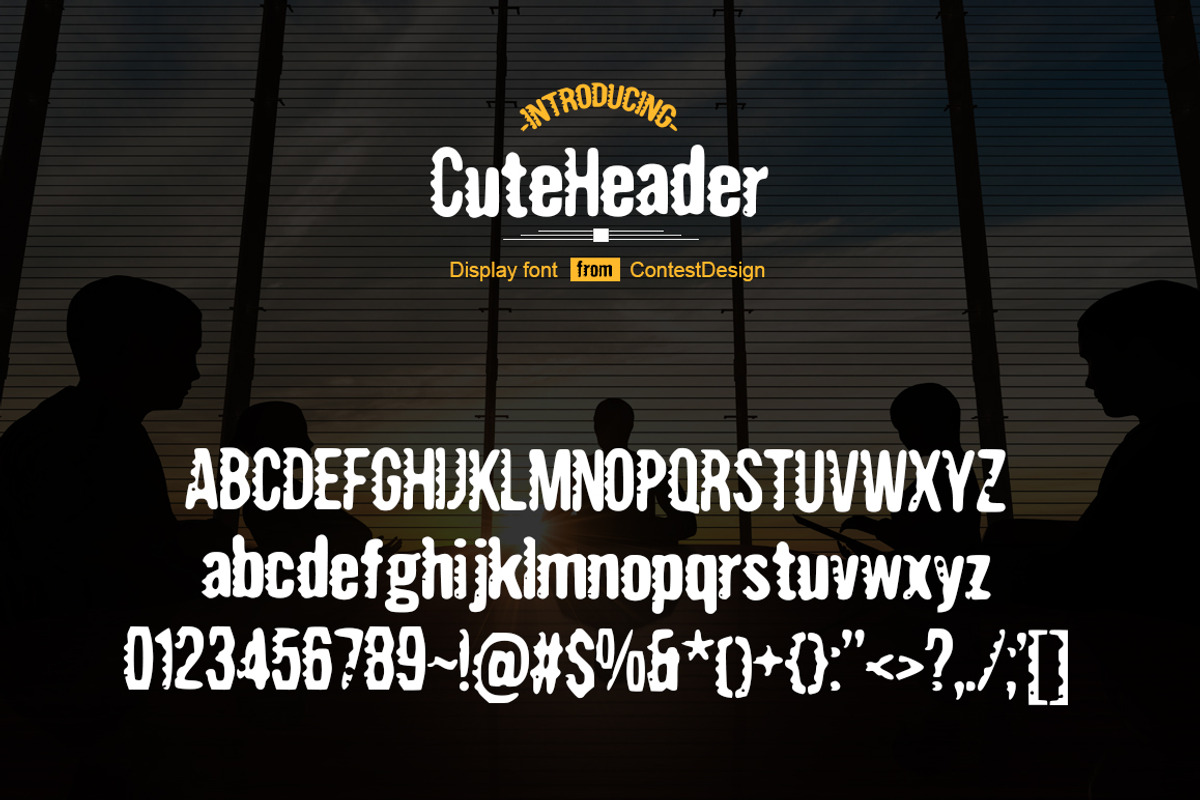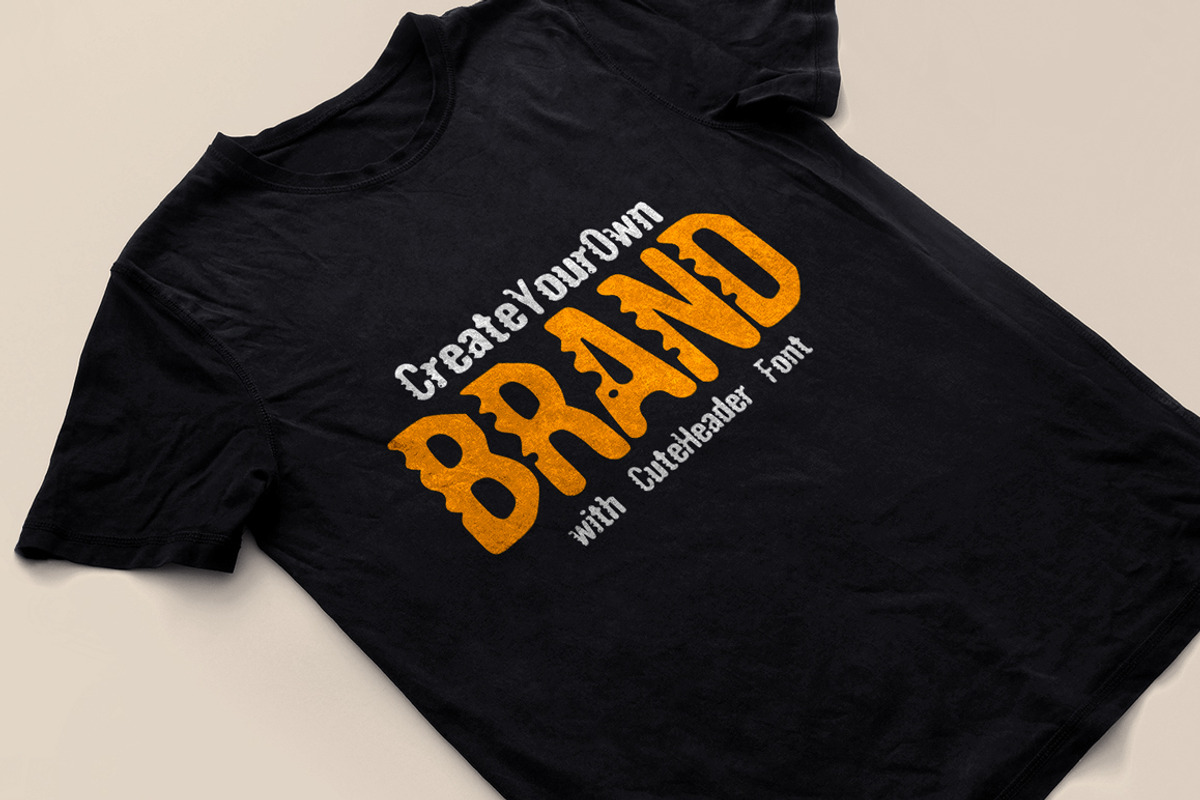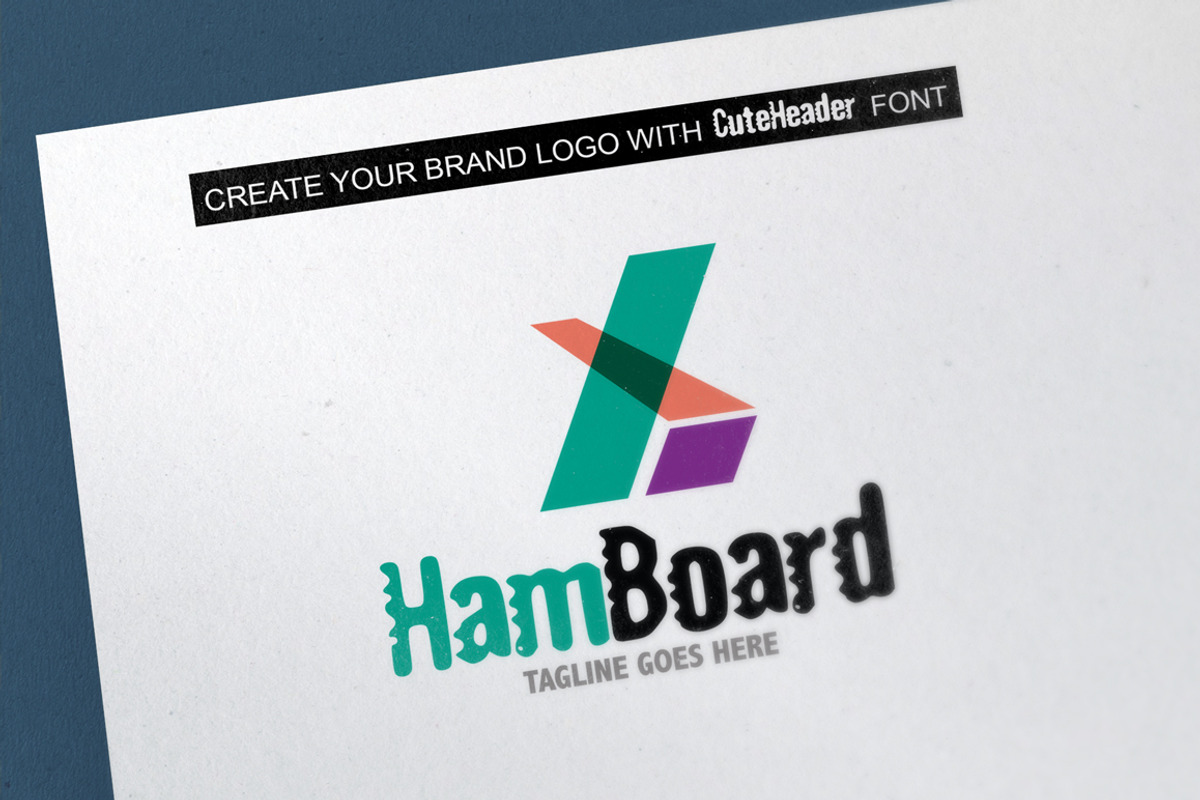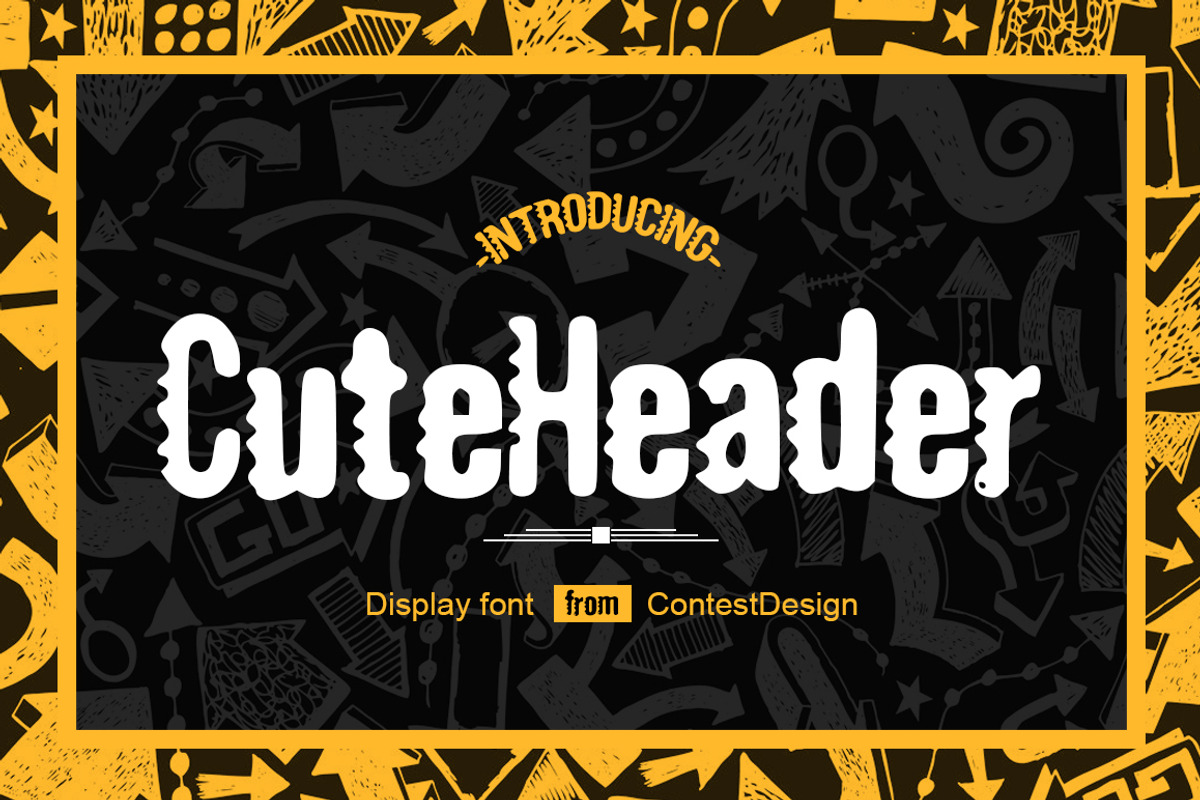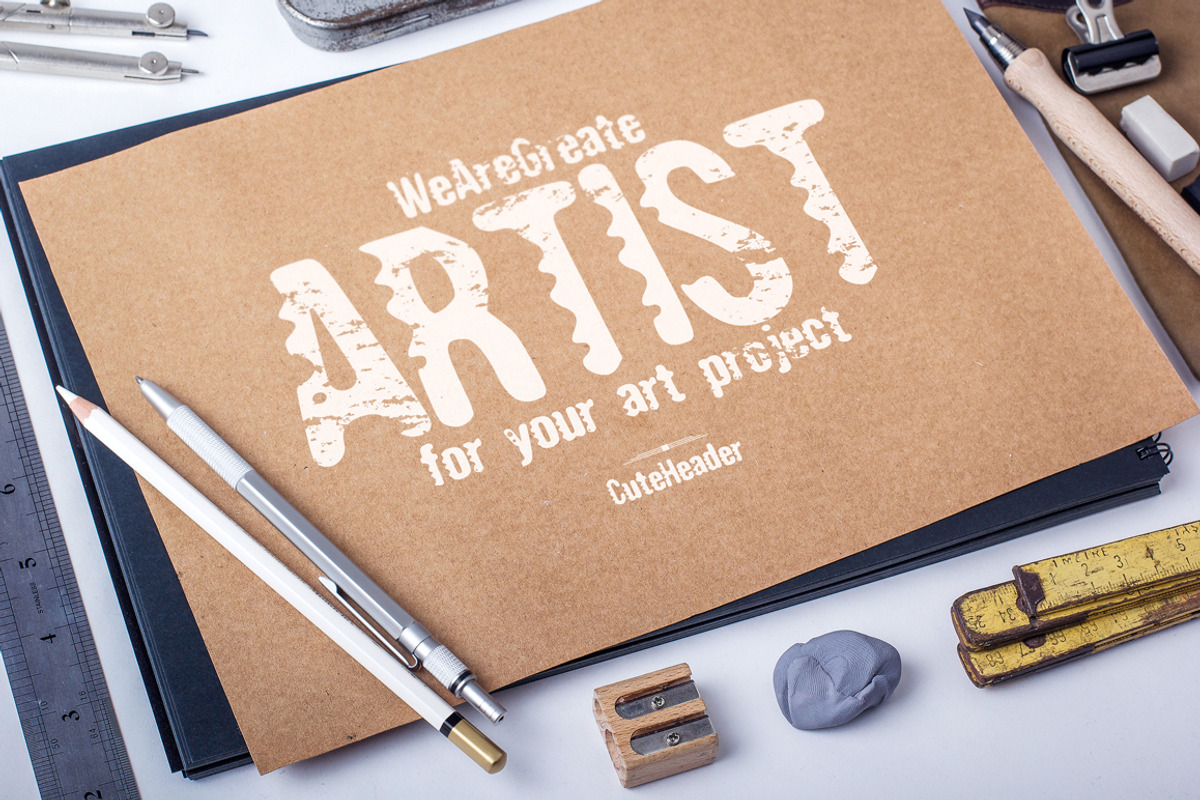
Cute Header Display Font
Cute Header Display Font by ContestDesign is a font selected for branding, posters, packaging, typography.
Why Cute Header Display Font is worth a look
Cute Header Display Font by ContestDesign fits naturally into Branding, posters, packaging, typography.